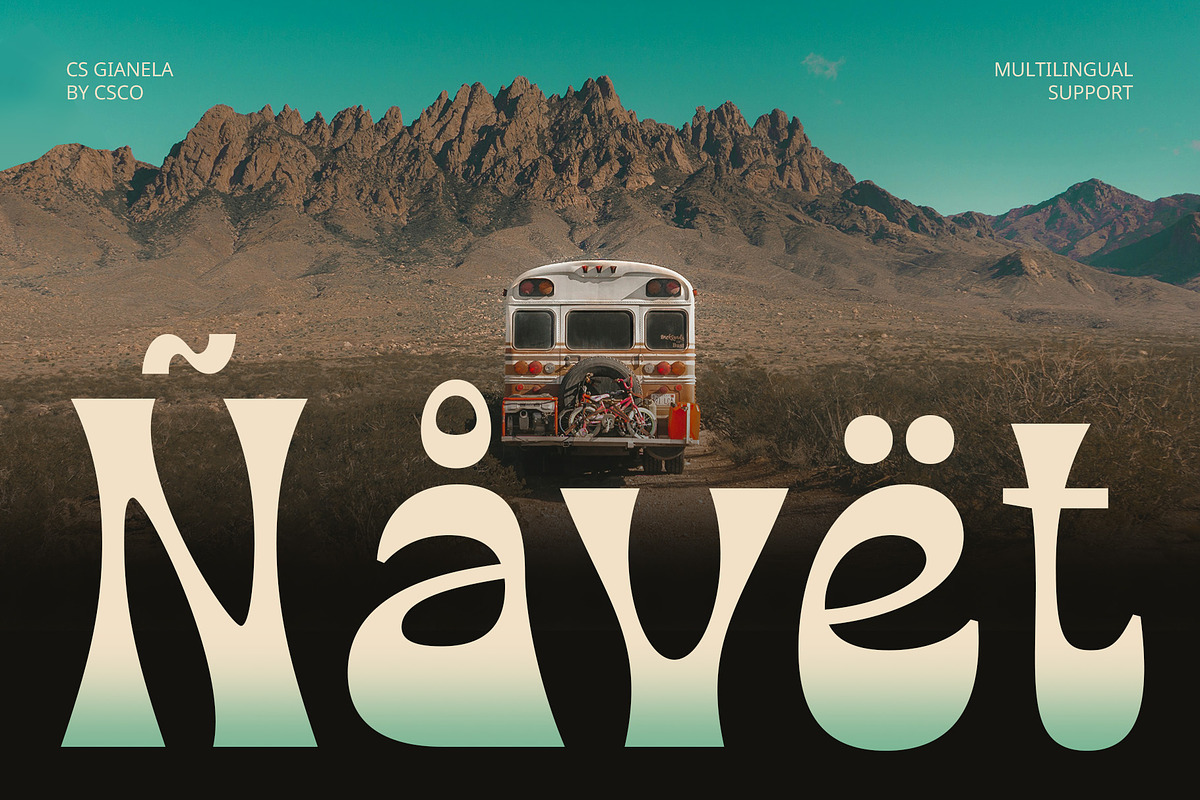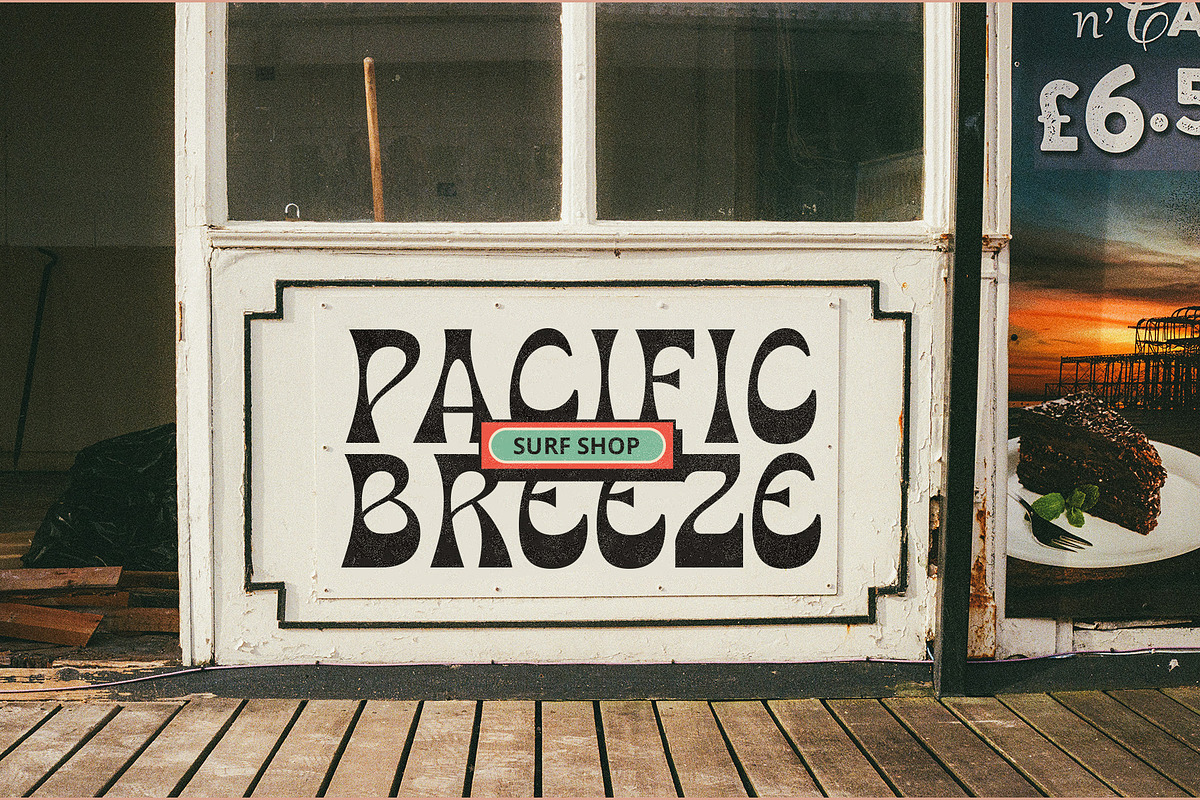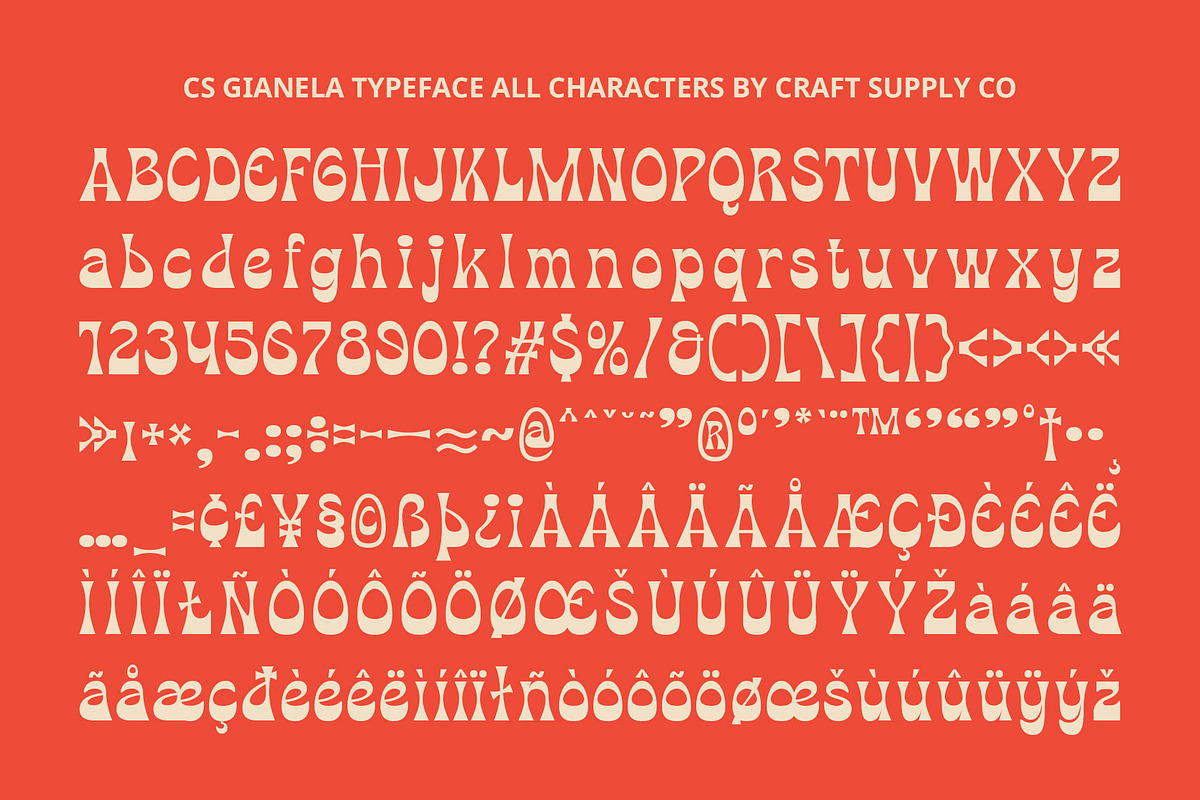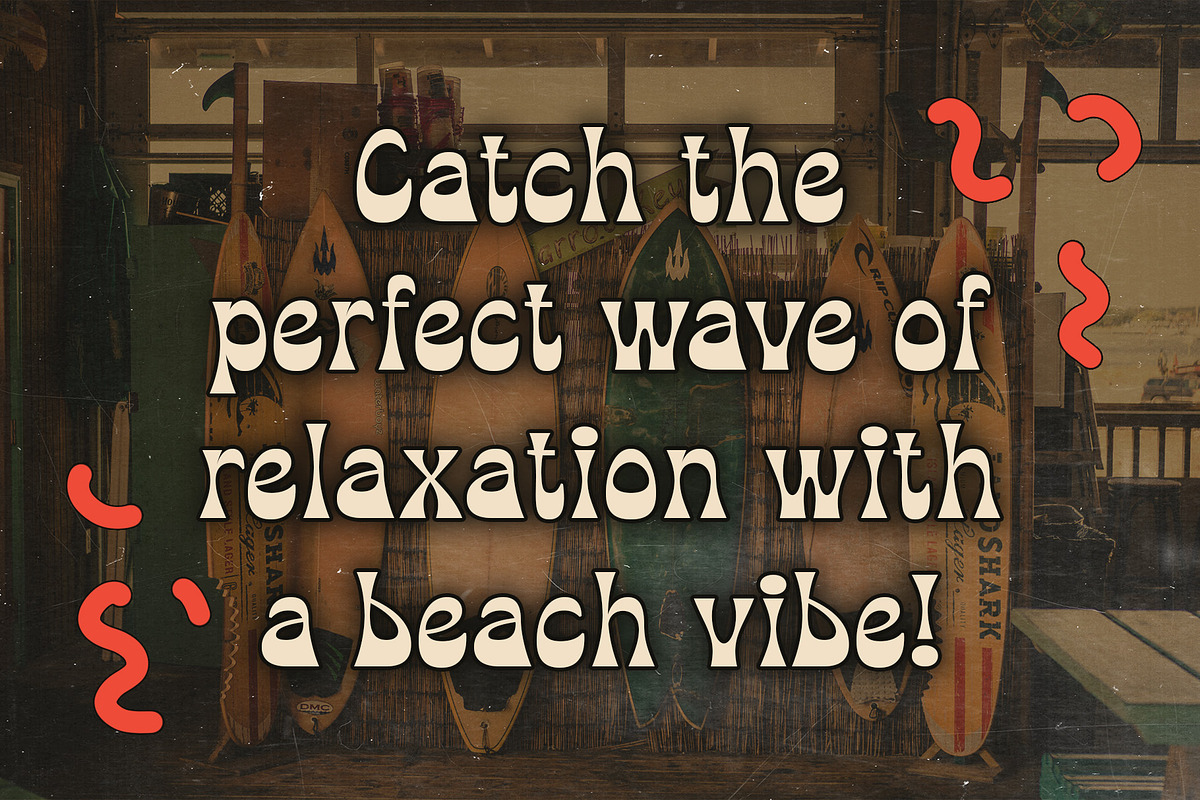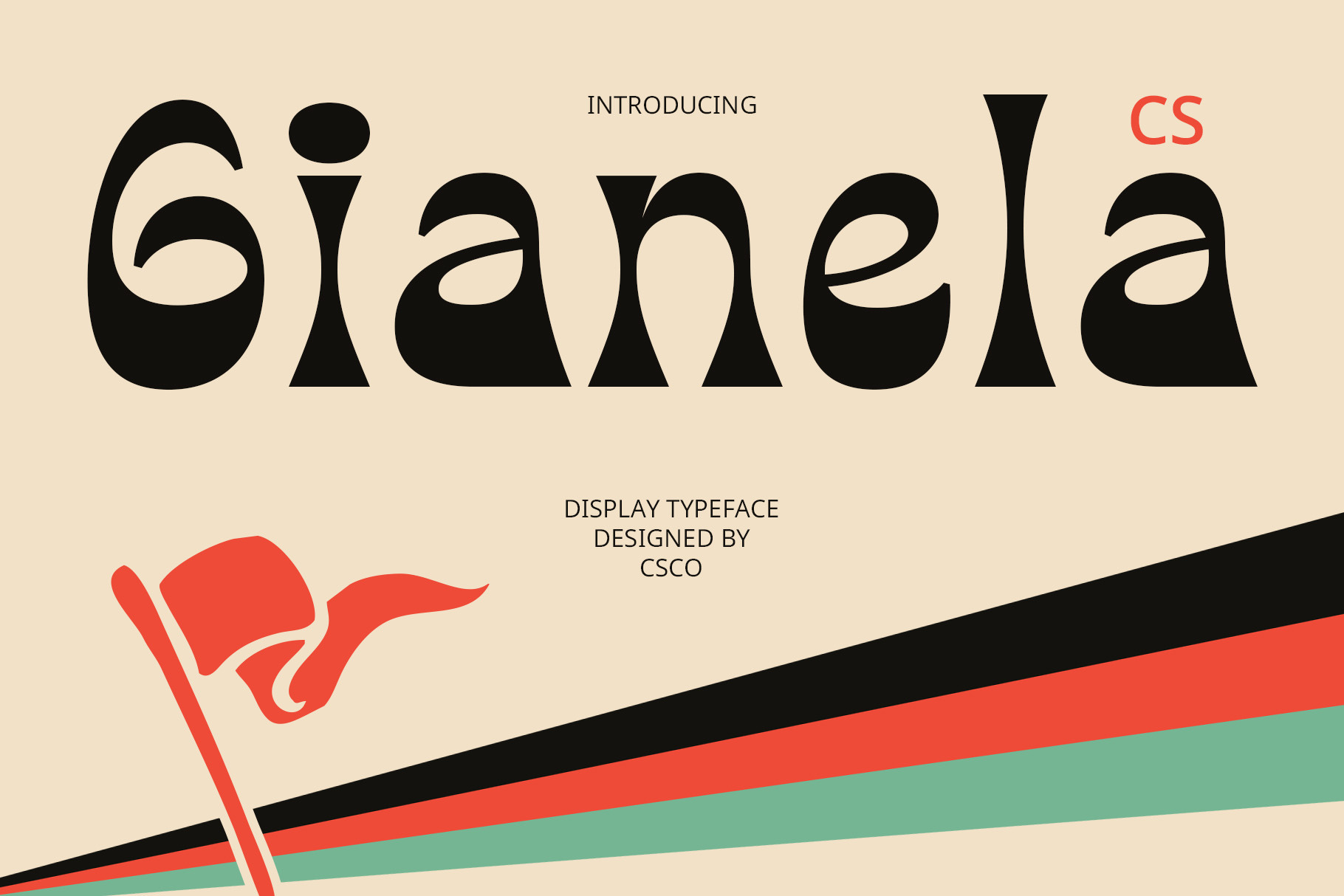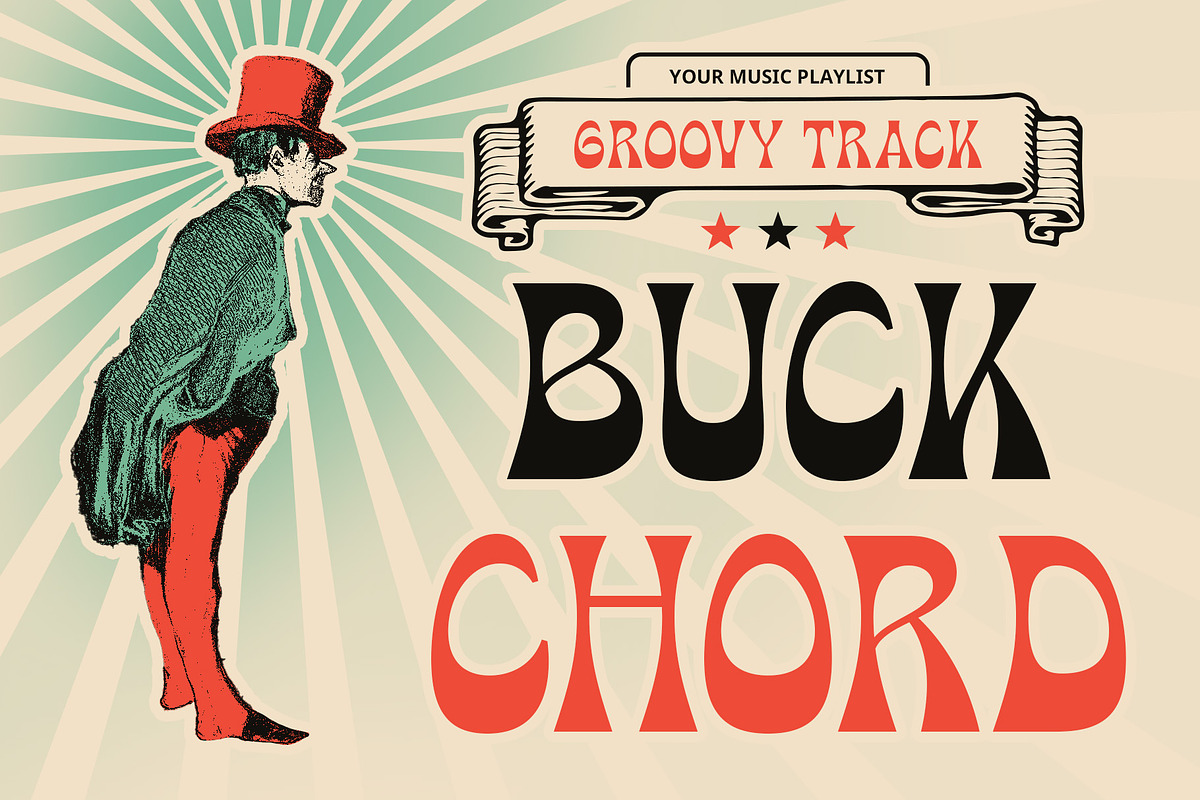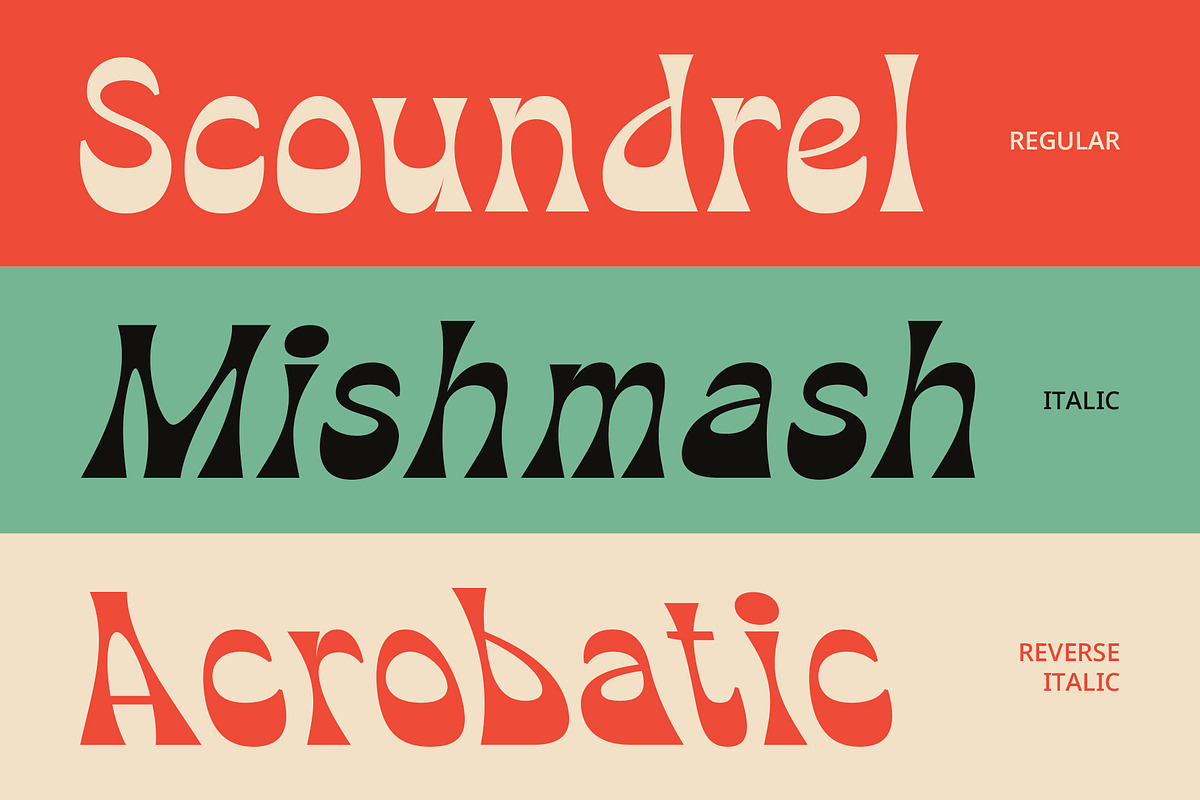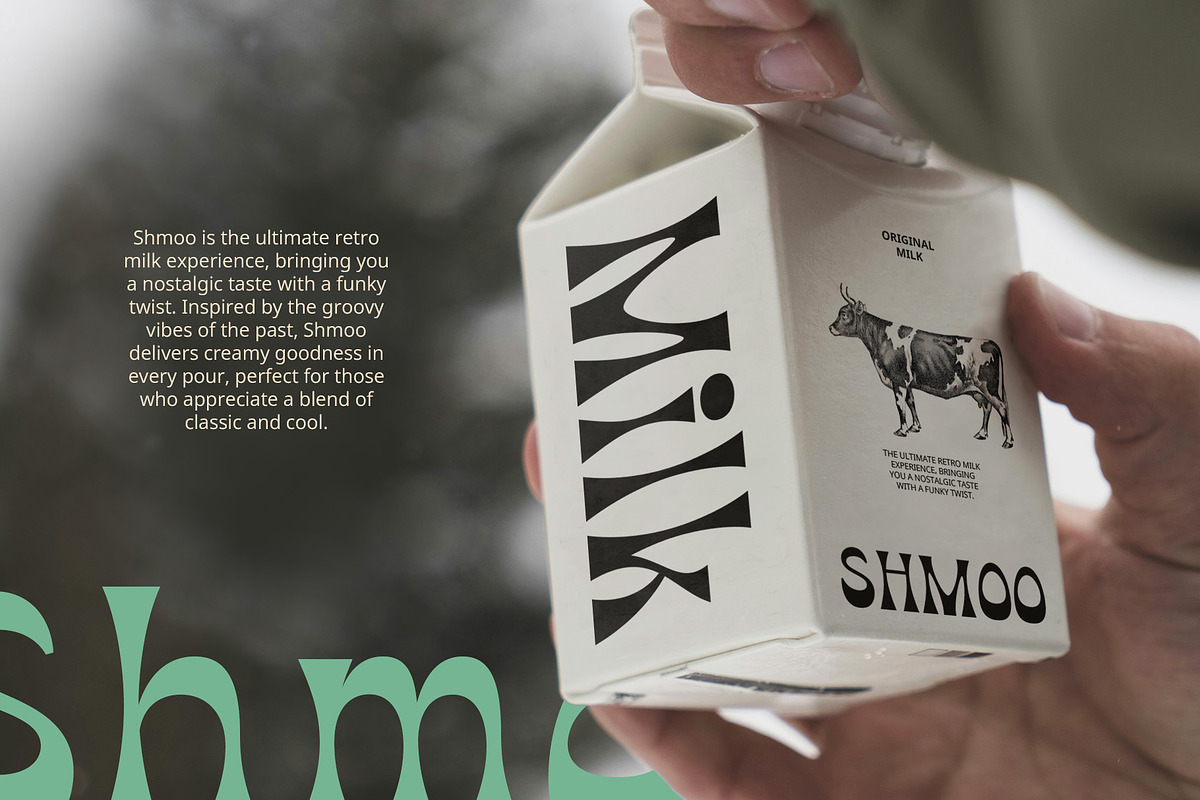
CS Gianela – Reverse Contrast Font
CS Gianela – Reverse Contrast Font: Bold Vintage with a Modern Twist
Unique Reverse Contrast Design CS Gianela is a striking reverse contrast display font that blends traditional design elements with a bold visual twist. The font’s defining feature is its reverse contrast, where the stems of the letters are thinner, while the serifs or ends are thickened, creating a dynamic and attention-grabbing visual effect. This contrast gives the font a sense of movement, providing a distinct visual style that stands out in any design. It’s perfect for adding dramatic flair while maintaining a timeless appeal.
Vintage Retro Feel with Modern Appeal Evoking the essence of the 60s and 70s, CS Gianela captures a vintage retro aesthetic, drawing inspiration from bold yet elegant shapes typical of the era. This font combines nostalgia with contemporary style, making it ideal for designs seeking a classic look with a fresh and modern feel.
Ideal for Retro-Themed Designs CS Gianela excels in projects that aim to invoke the spirit of the past, particularly retro movie posters, classic music album covers, or branding for nostalgic-themed products. Its bold and distinctive characteristics are perfect for creating impactful designs that leave a lasting impression. Despite its vintage charm, CS Gianela maintains a modern sensibility, making it ideal for any retro-inspired design needing a unique and eye-catching typeface that feels both timeless and fresh.